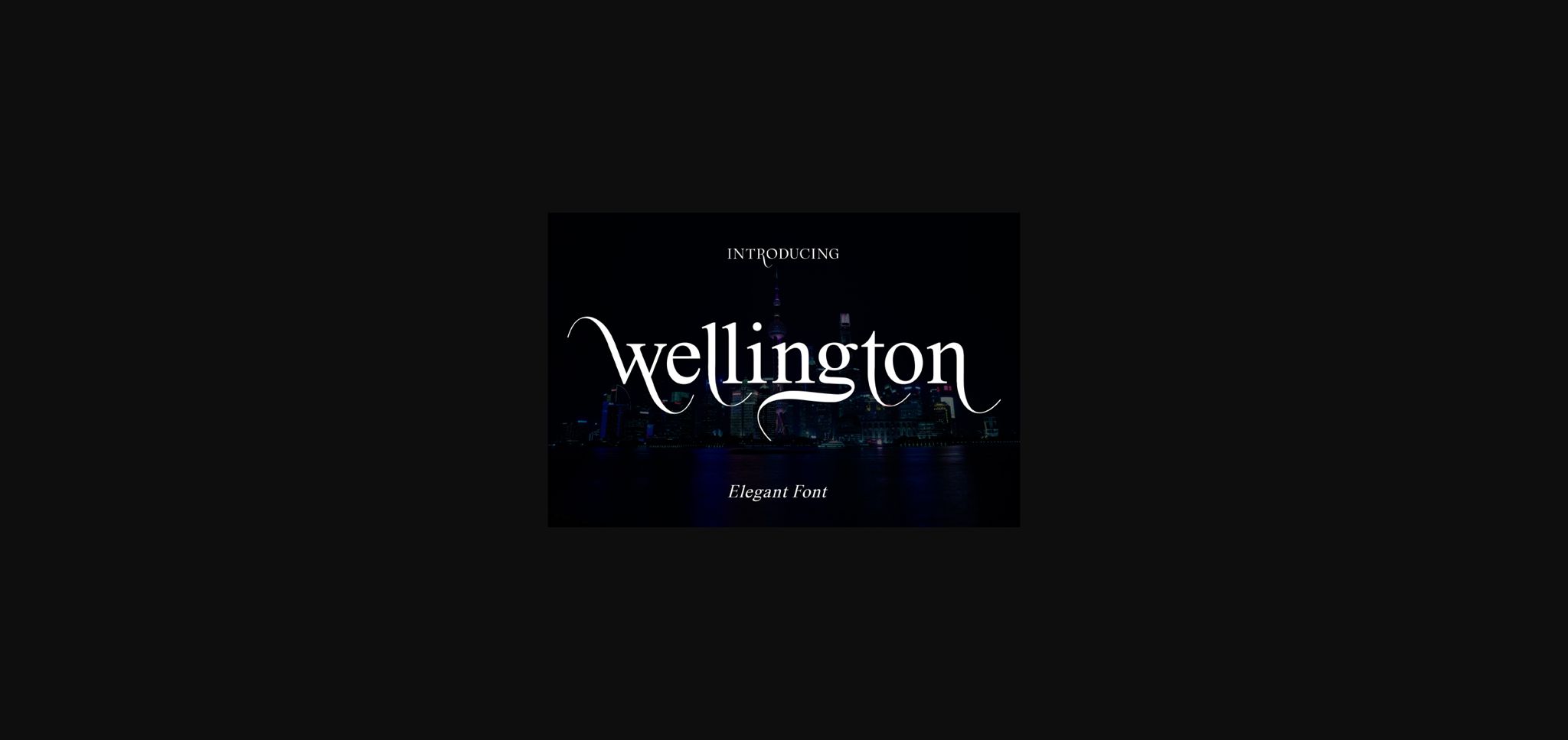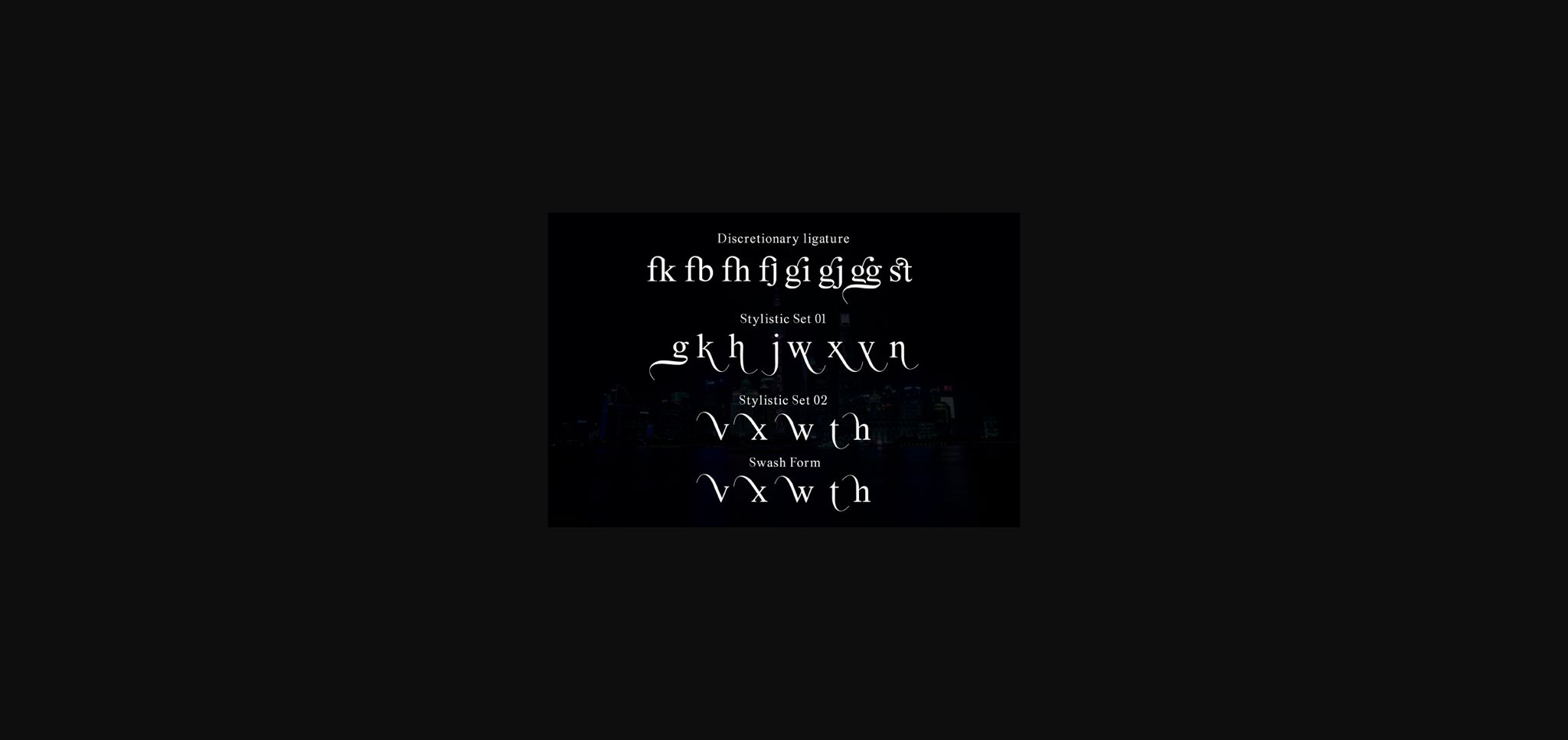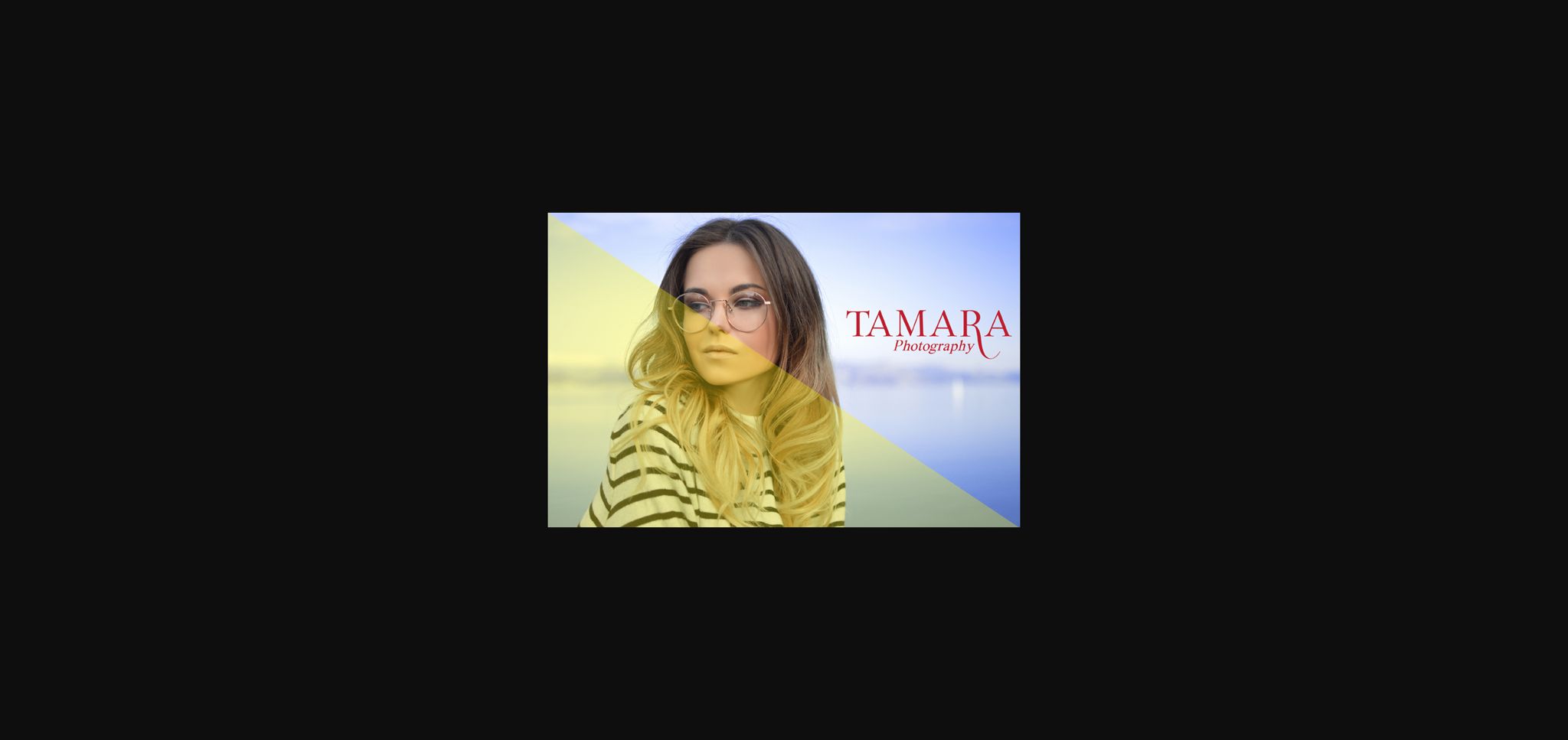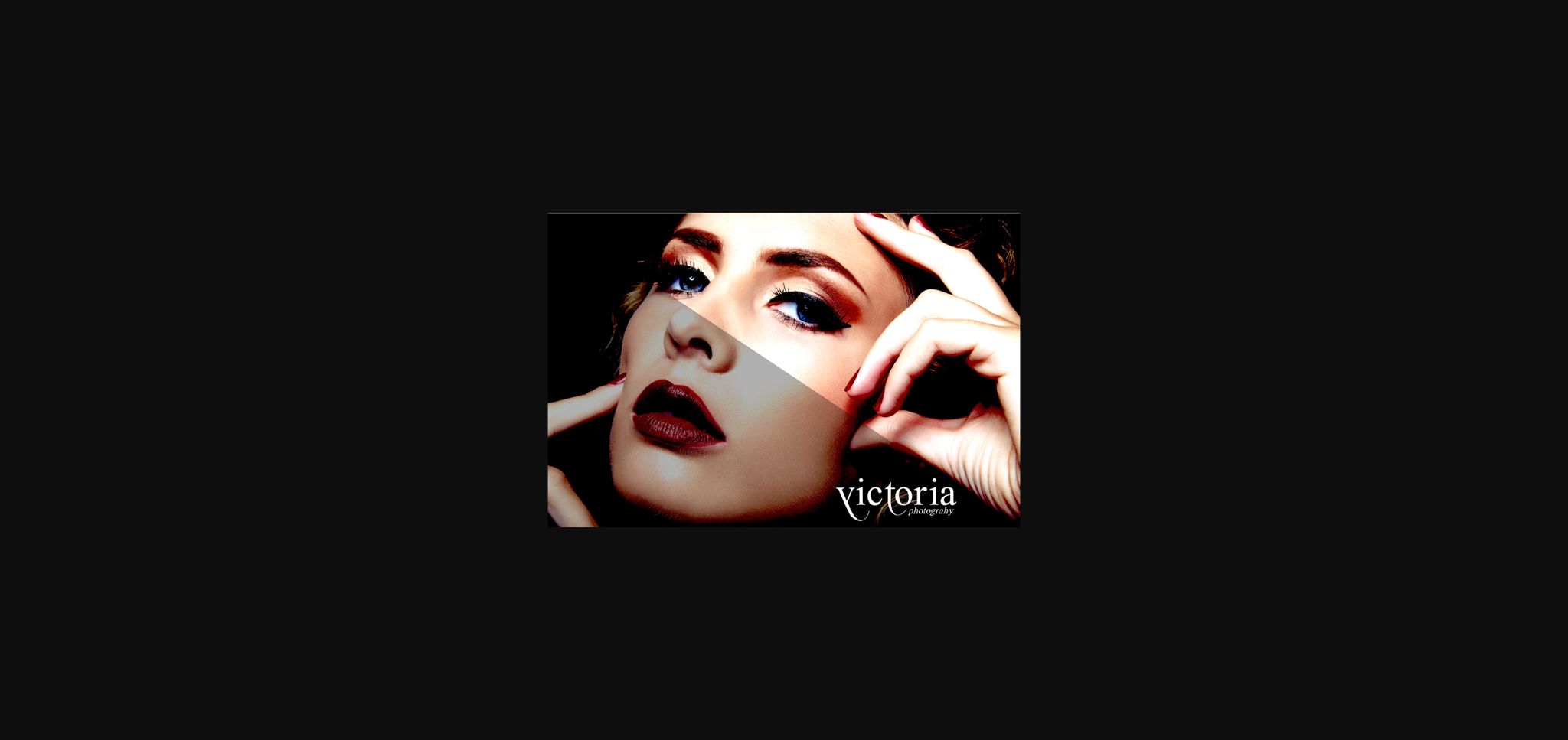
About Wellington Font
Wellington is a fancy, contemporary sans serif font. In addition to its well-balanced weight distribution, it delivers an elegant style that is further emphasized by the carefully adjusted alternates and ligatures!